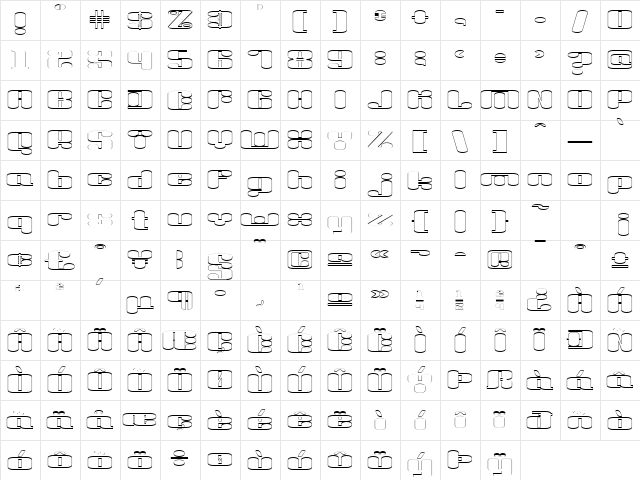
Liquid Sex Outline Regular
Design Context for Liquid Sex Outline Typeface
Liquid Sex Outline is built around its visual character rather than neutral utility — its distinctive forms are designed to make an impression at display sizes.
Font Pairing: Pair with a clean neutral sans-serif for body copy to let Liquid Sex Outline's character lead without overwhelming the composition.
Pro Tip: Treat Liquid Sex Outline as the centrepiece of your typographic hierarchy. One strong heading set in a decorative face can carry an entire layout.